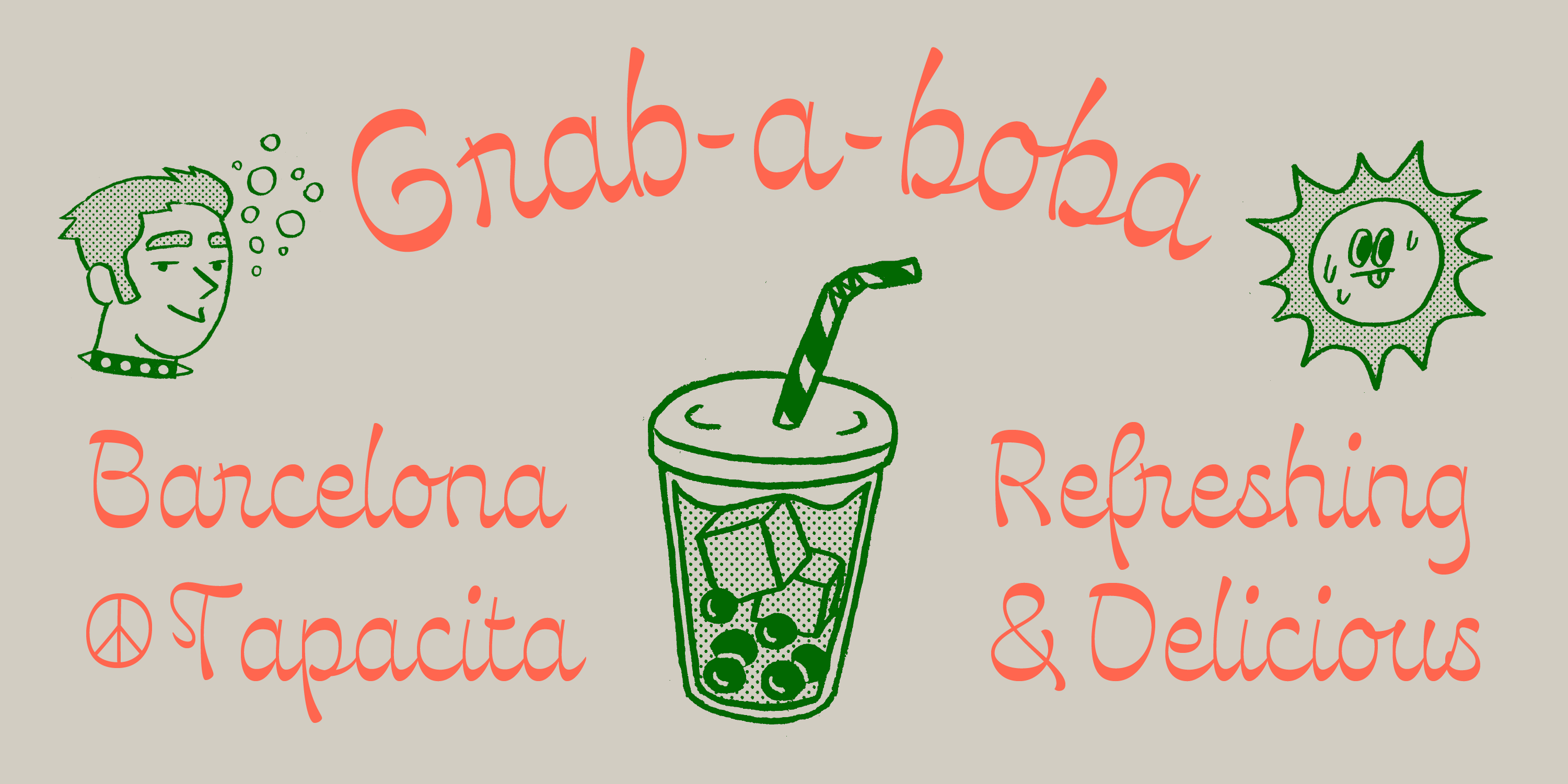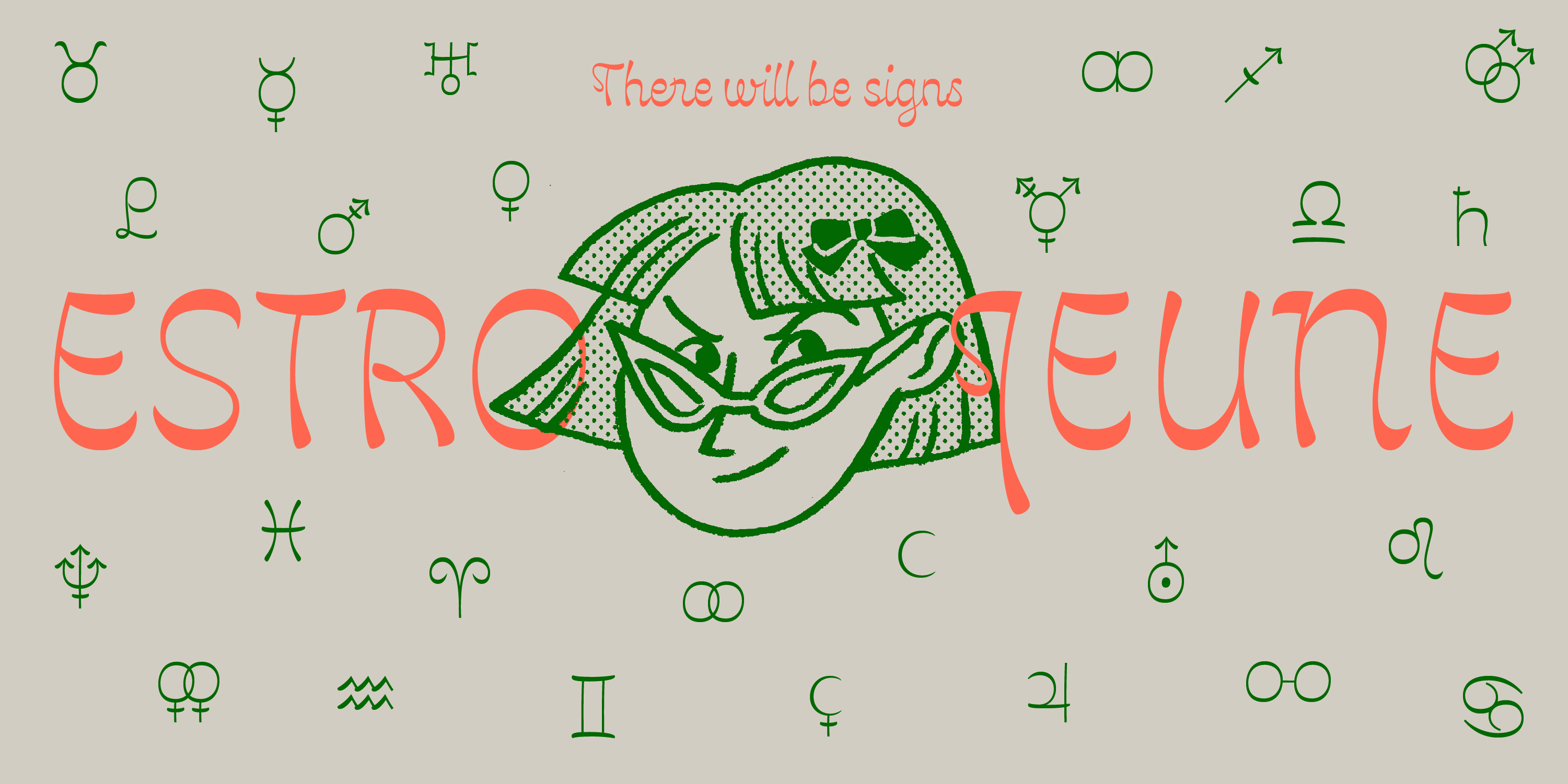
Estrojeune
Estrojeune is an upright script with horizontal contrast suitable for bold visual identities such as those required by music festivals, playful brands, captivating packaging, titles, and headings: anything that needs to be communicated in a loud, saucy, and joyful way.
Estrojeune features a fairly large x-height, narrow proportions, and stylistic variations that are automatically triggered according to each letter’s position within a word, thanks to the appropriate OpenType feature. The typeface also includes numerous alternates that automatically activate to create entry and exit strokes on more distinctive letters such as r, s or z. A set of arrows and several symbols related to astronomy, astrology, sexual orientation, and gender has also been drawn, as well as a set of swash capitals, which can be enabled through the OpenType features panel to create striking drop caps.
The name of the typeface hints at Aldo Novarese’s Estro (Nebiolo, 1961) and incorporates the French noun and adjective ‘jeune’ (young), interestingly used for both masculine and feminine forms. Estrojeune playfully teases Estro: it keeps the horizontal contrast but being a script face it flows in a fluid, sinuous rhythm.
‘If Estro was promoted by the Nebiolo Company as “il carattere del sorriso” (the typeface of a smile),’ as designer Valentina Casali points out, ‘Estrojeune could be defined as “the typeface of a smirk”.’
Regular
OpenType Features
Oldstyle Figures
Case Sensitive Forms
Swash
Alternative z (SS 01)
Alternate &
Arrows and symbols